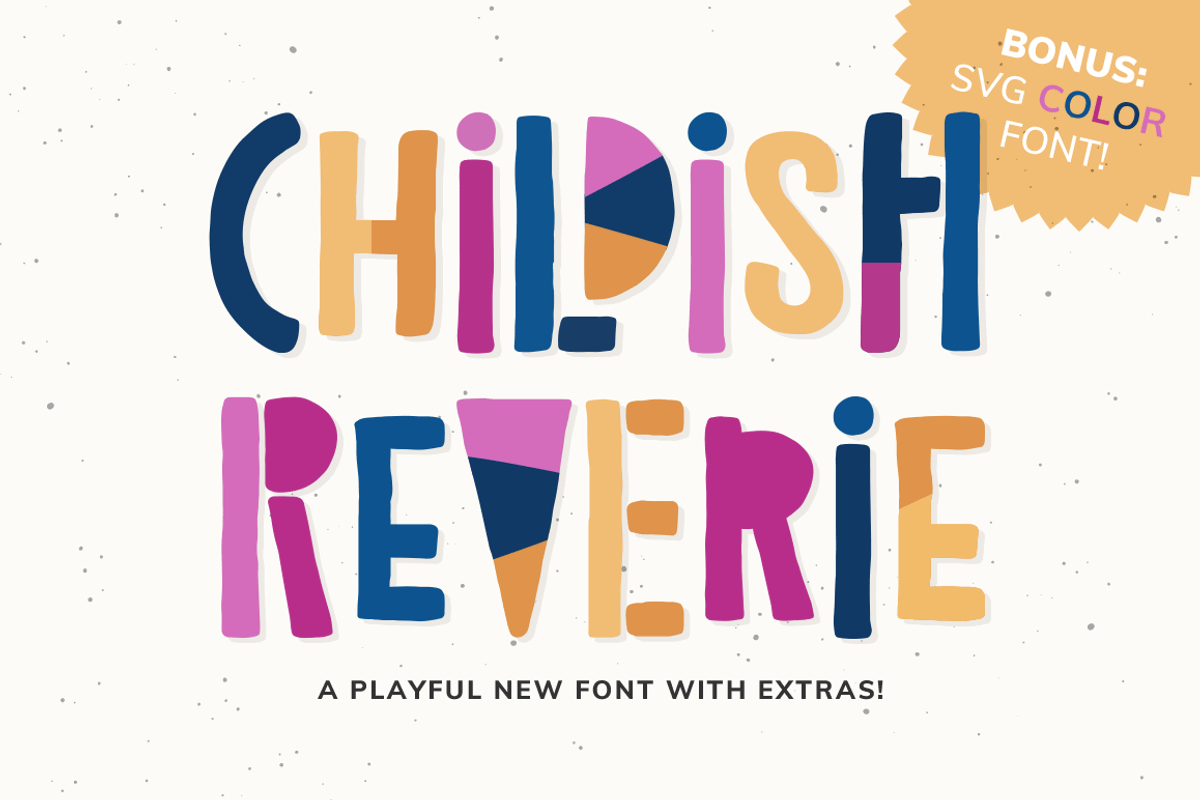
The Ultimate 90s Font Pack
Oh Snap! The Ultimate 90s Font Pack is here! Four fonts oozing with that casual fun style that defined the decade, bundled together and 50% off! As a bonus, an exclusive bubbly font has been thrown in just for kicks. It doesn't get any more fun than this!
Why The Ultimate 90s Font Pack is worth a look
The Ultimate 90s Font Pack by Denise Chandler fits naturally into Branding, posters, packaging, typography.